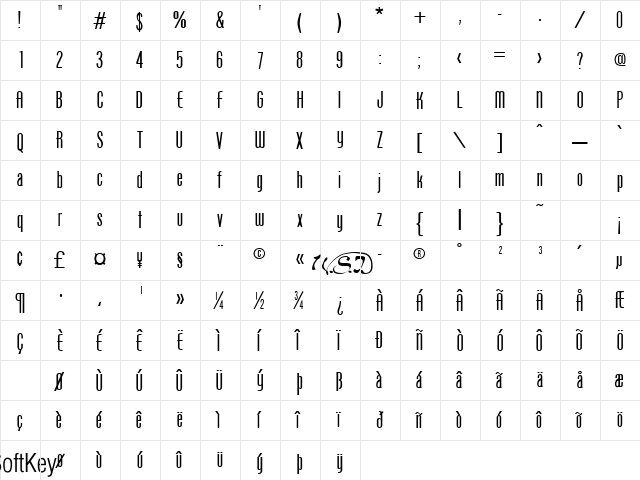
Protege Regular
Design Context for Protege Typeface
Protege offers clean, dependable letterforms without strong stylistic allegiance, making it a practical choice for designers who need flexibility.